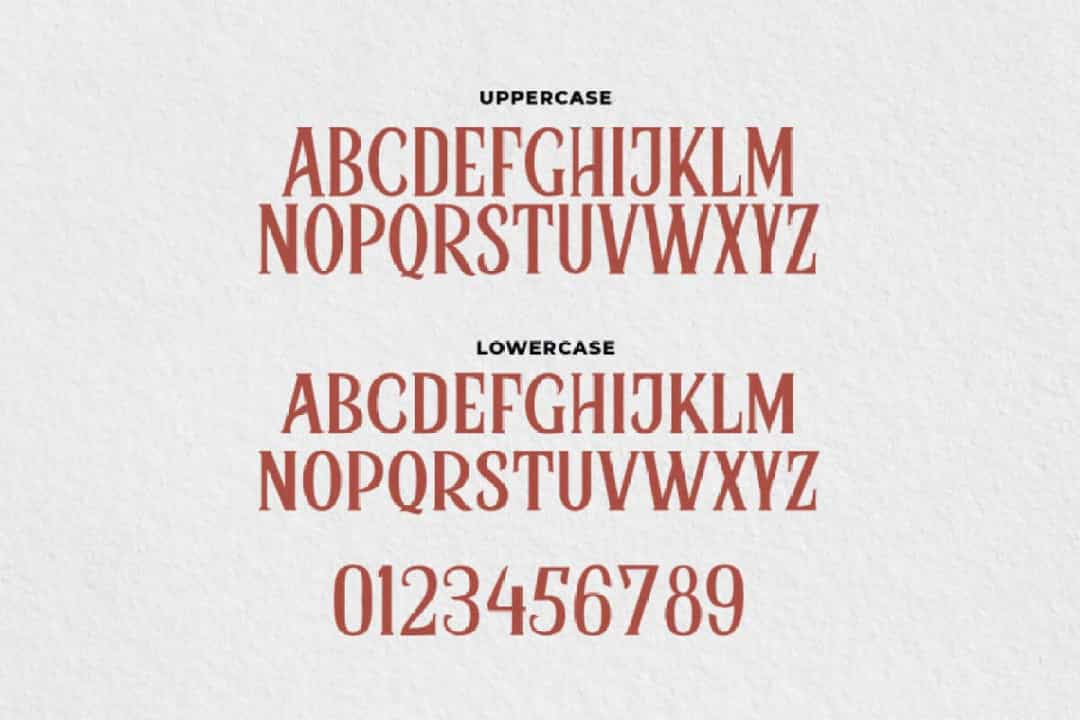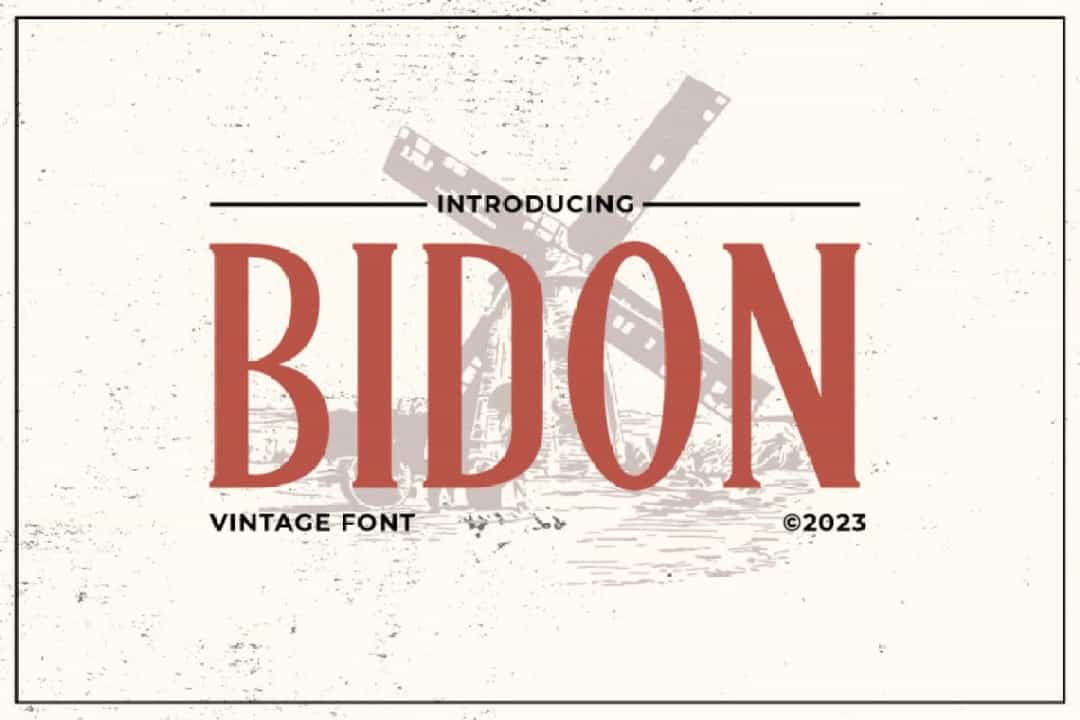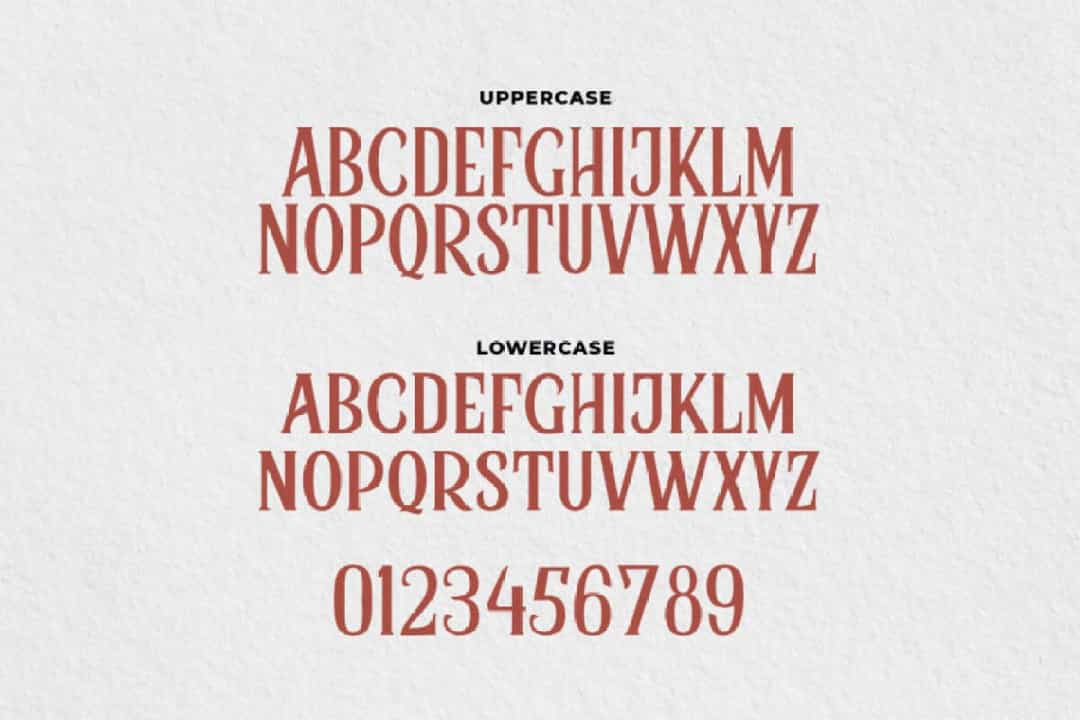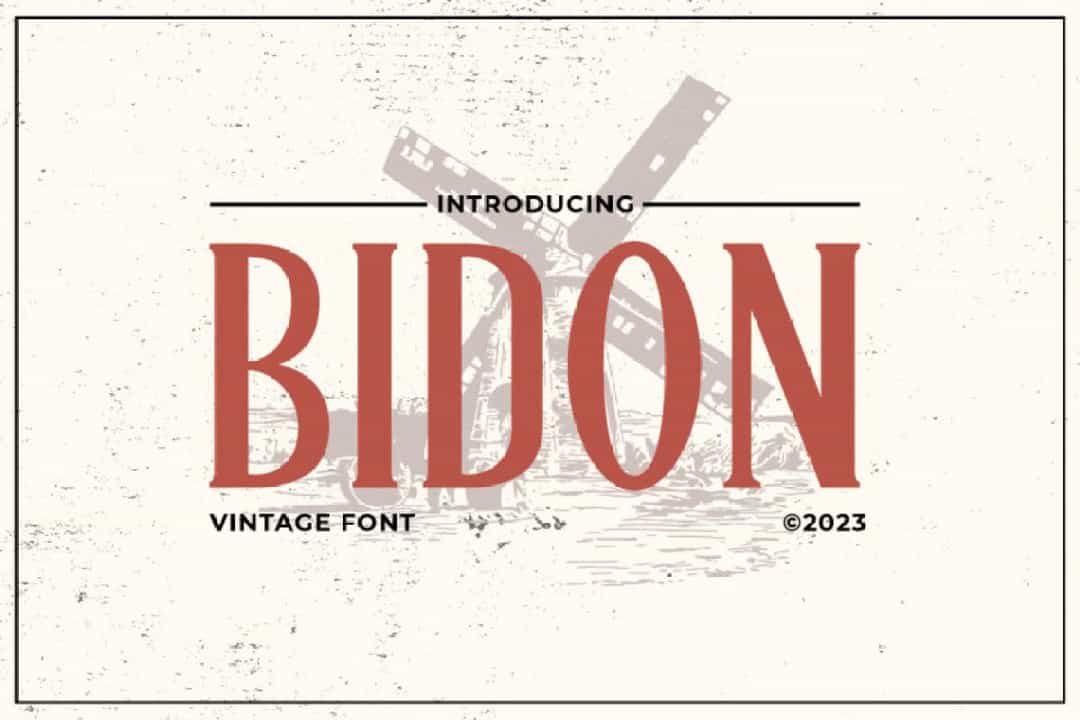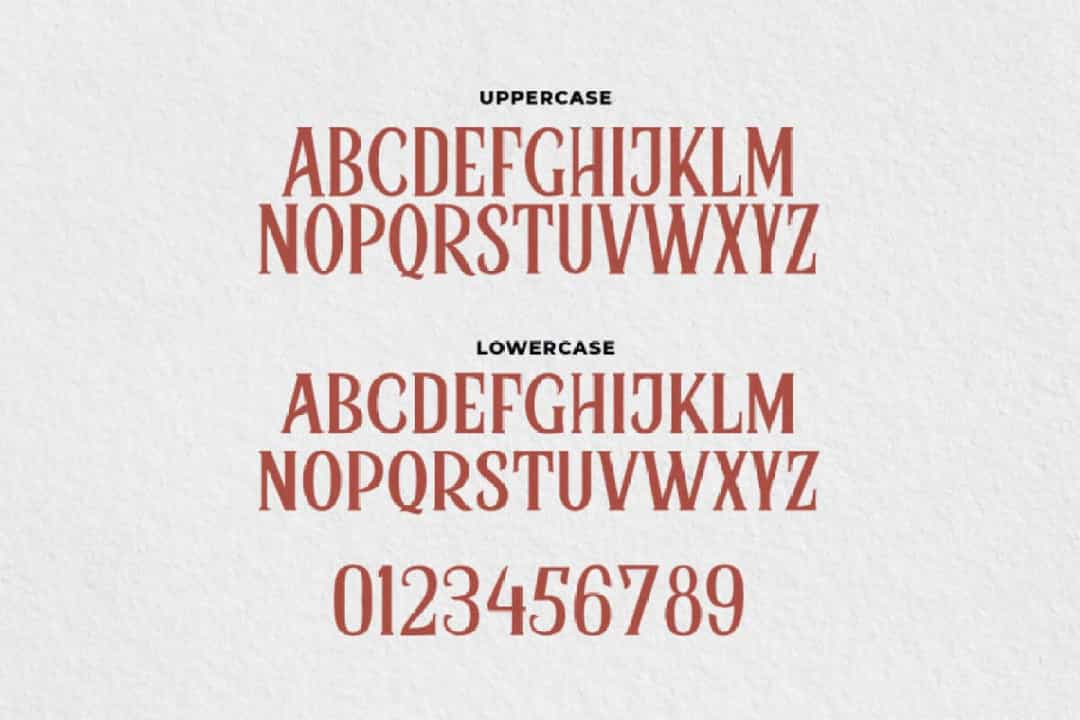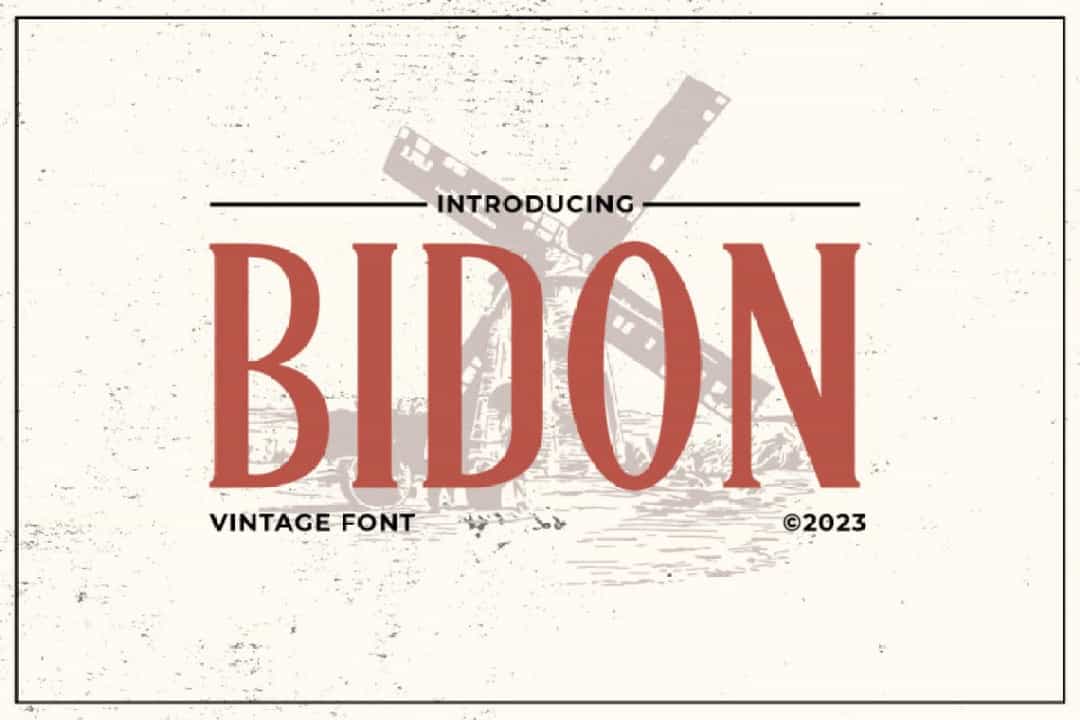
Bidon is an iconic serif typeface that transports you right into the heart of the Wild West. With its timeless and rugged style, it embodies western style to encapsulate its spirit. Bidon, the iconic font of the Wild West, embodies its rustic character perfectly and offers rugged simplicity that resonates with life in the cowboy culture.